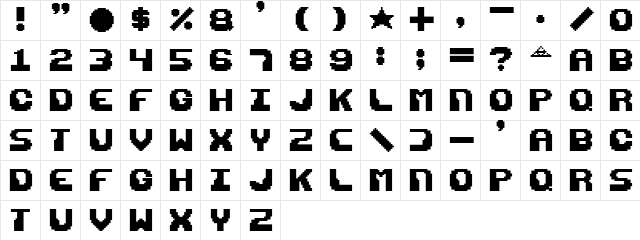
Razor 1911 Retro wears its vintage influences proudly, with letterforms that recall mid-century signage, classic packaging, and nostalgia-driven design.
Font Pairing: Combine Razor 1911 Retro with a simple slab or neutral sans - period-accurate companions reinforce the vintage feel without competing for attention.
Pro Tip: Lean into Razor 1911 Retro's period character by pairing it with aged paper textures, muted colour palettes, and vintage illustration styles.